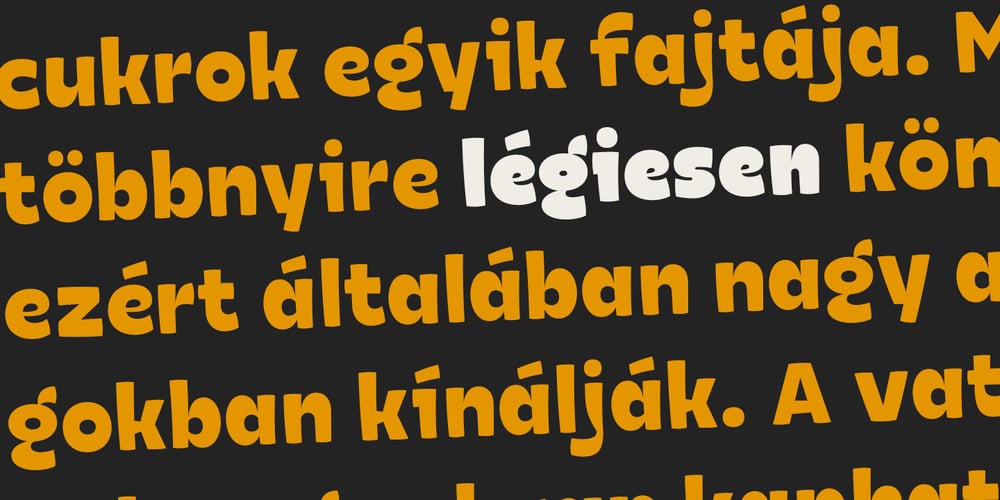
Naguel
Naguel font
Naguel Font Family was designed by Rodrigo Araya Salas and published by RodrigoTypo. Naguel contains 2 styles and family package options. With only 2 pesos, this font can be the most fun! multilanguage and special for titles!